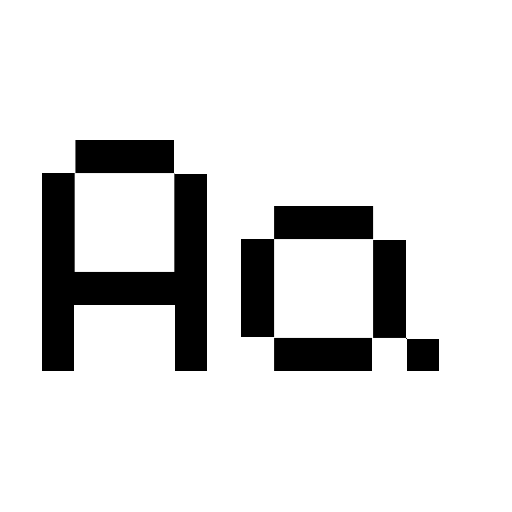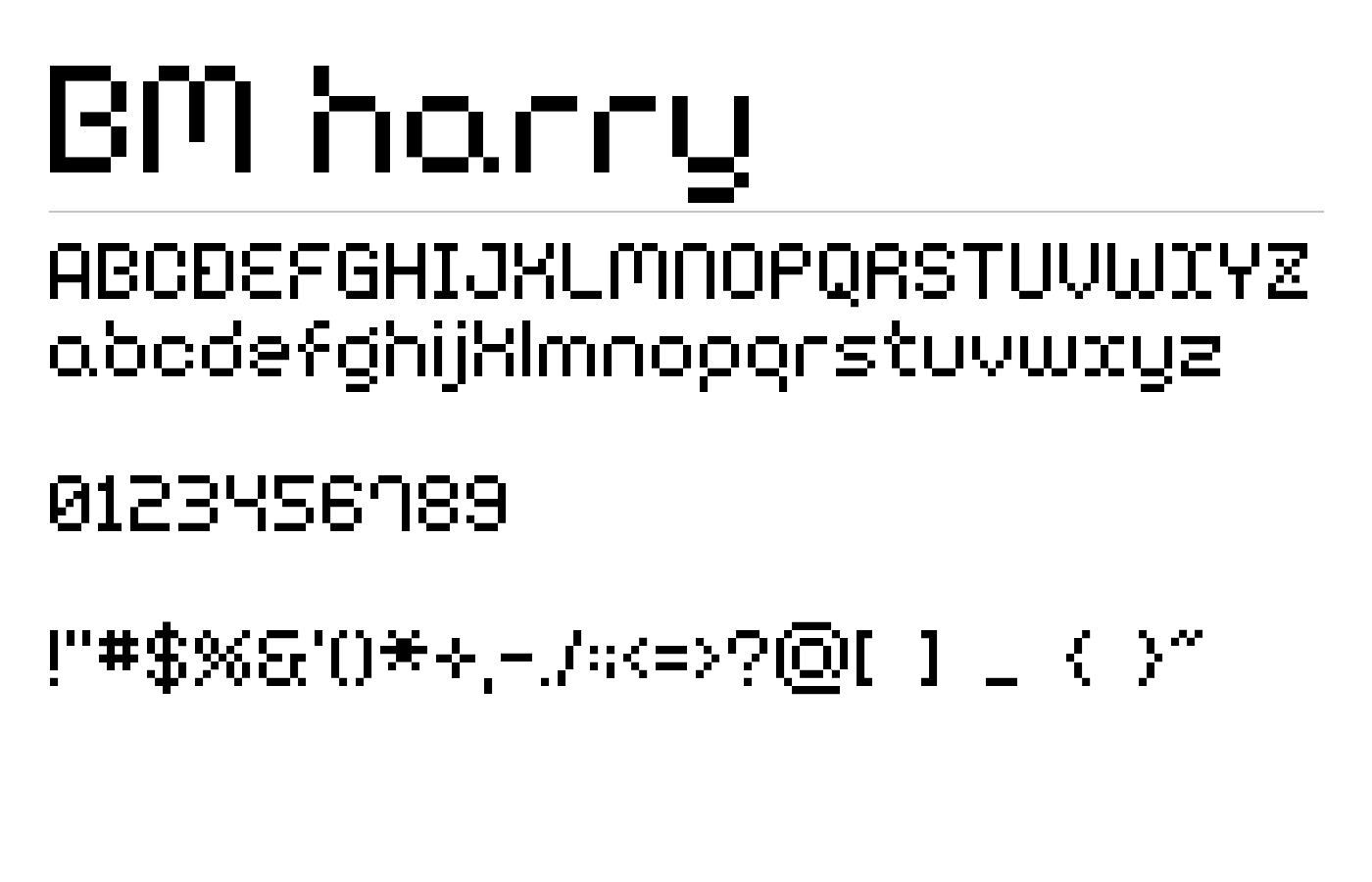
BM harry is a pixelated monospaced sans serif font that evokes a retro, digital feel with its blocky, geometric letterforms. Its consistent stroke weight and sharp edges make it ideal for projects that require a vintage computer or video game aesthetic, working especially well in logos, headlines, or screen-based designs where clarity and nostalgia are key. This font’s quirky but clean personality adds a playful yet technical vibe, perfect for creative tech branding or fun editorial accents.
BM harry Font
About BM harry Font